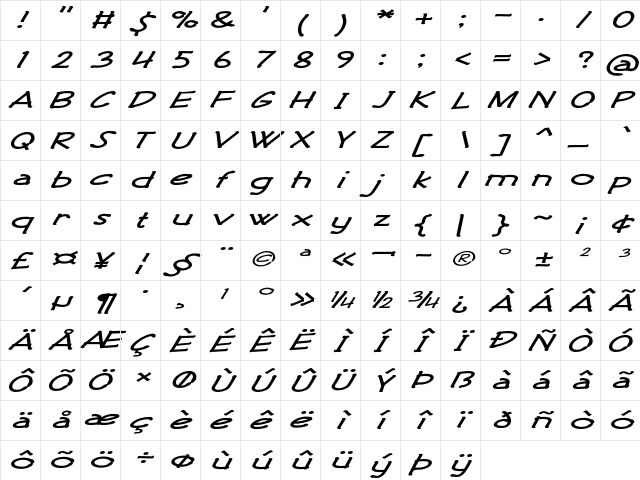
Toolie Pie Extra-expanded Italic Free Font
Toolie Pie Extra-expanded Italic
Style: Extra-expanded Italic
Toolie Pie Extra-expanded Italic
Design Context for Toolie Pie
Toolie Pie is a composed and adaptable typeface that performs quietly and consistently across a wide range of design contexts. The slanted form adds forward momentum and visual energy.
Pro Tip: Use Toolie Pie for emphasis, pull quotes, and subheadings where its slanted energy can add rhythm to the layout.